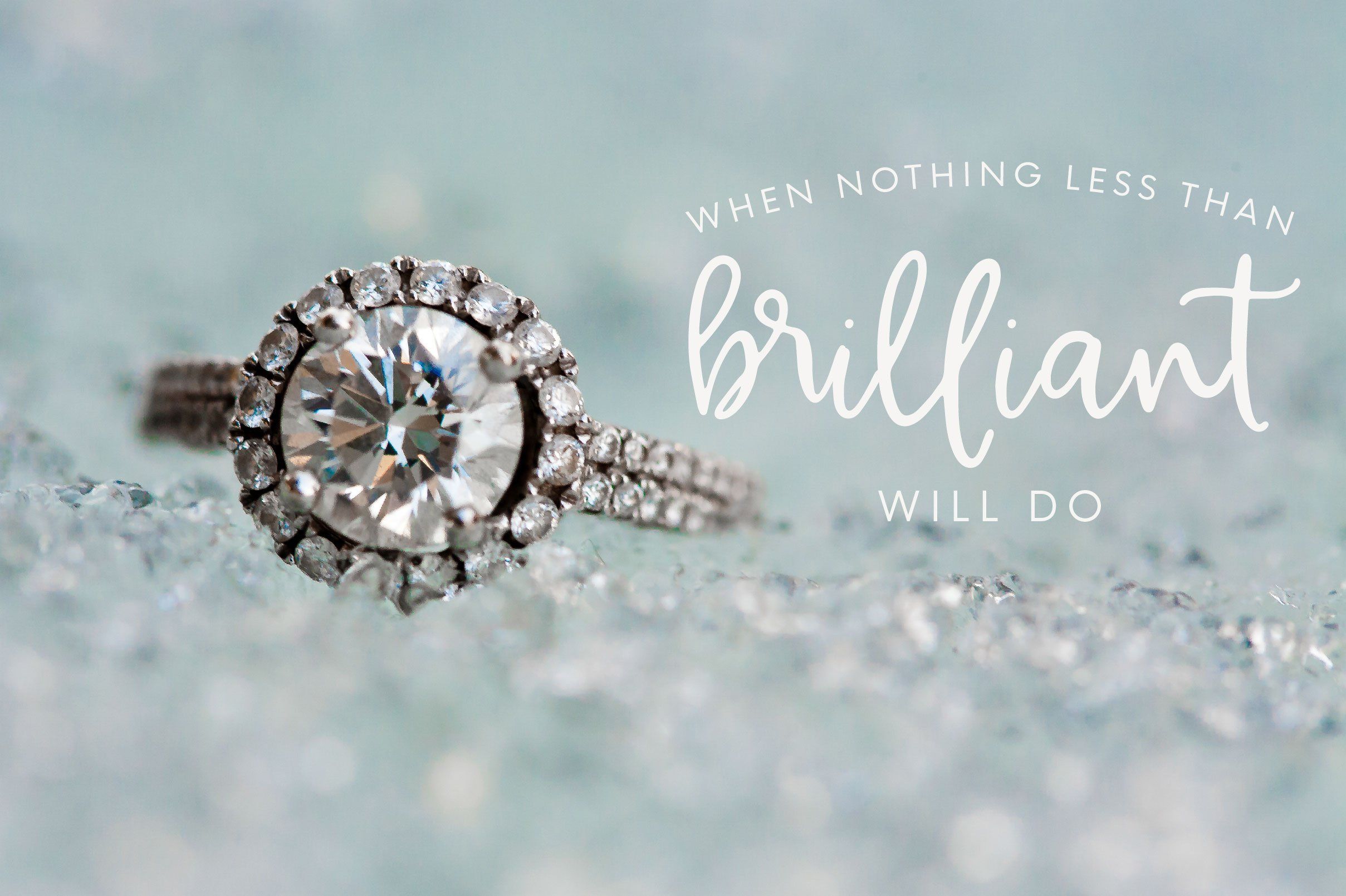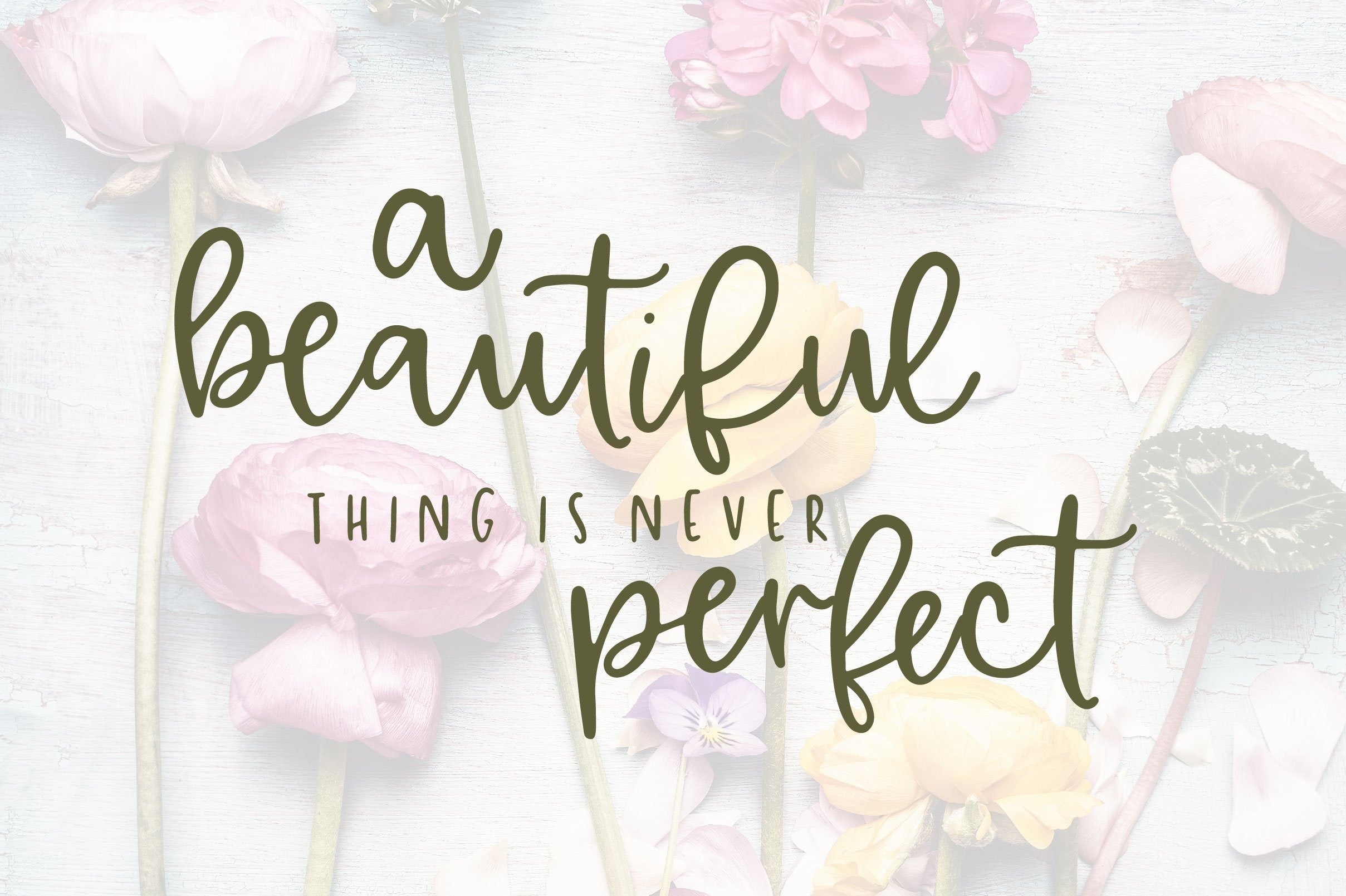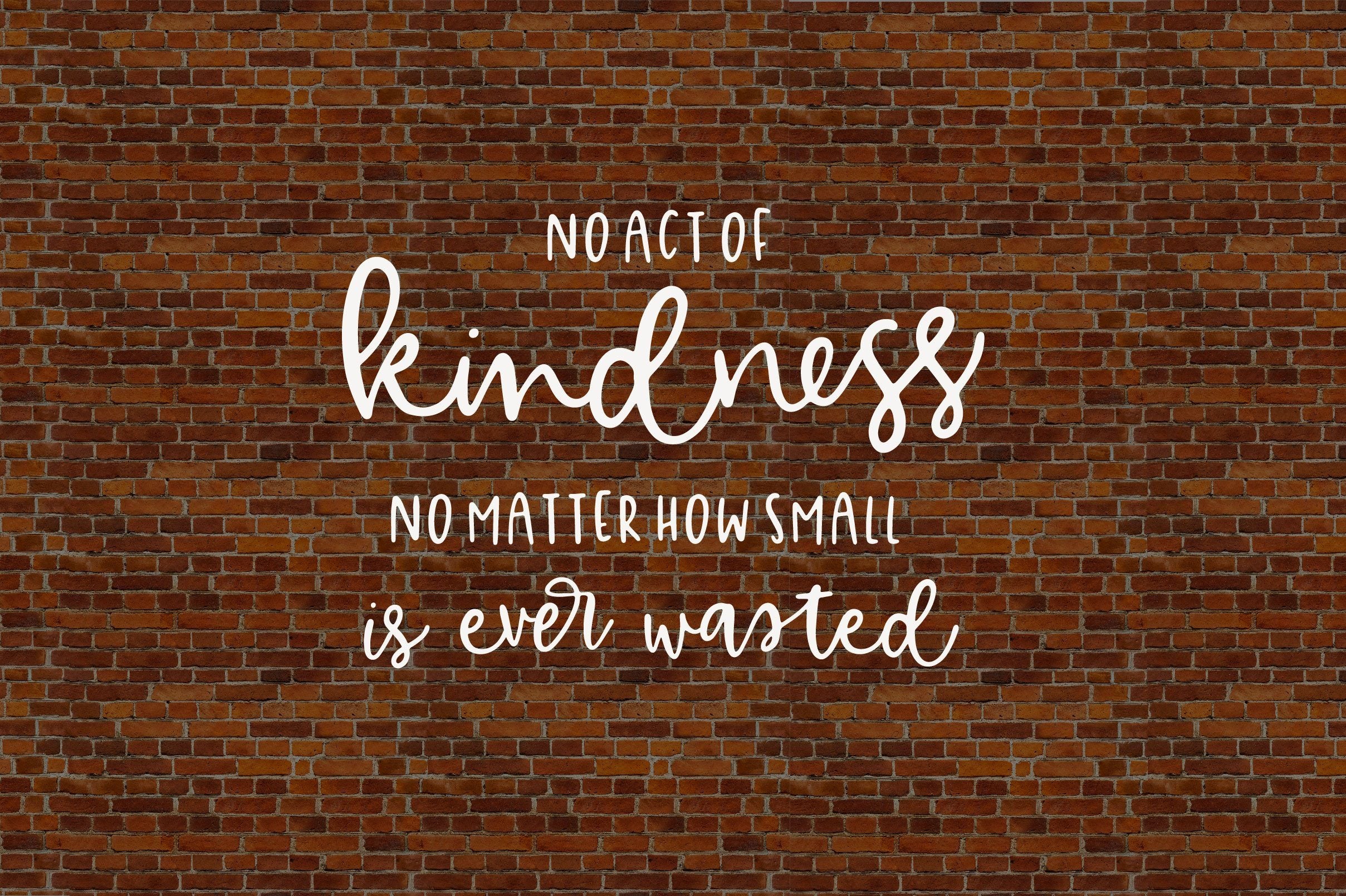
Alley Font Duo
About Alley Font Duo
Introducing the newest font duo from OTSS : Alley Alley is a perfectly paired font duo, hand lettered with individual letters as well as 170 ligatures! What’s Included: Alley.otf and Alley-SmallCaps.otf 170 alternative ligatures Enjoy!